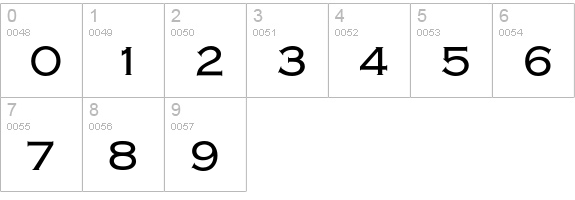
Copperplate Gothic Heavy Font Details
Copperplate Gothic Heavy is a heavy, high-impact variant in the Copperplate typeface family \xE2\x80\x94 well suited to high-impact headlines, posters, and display advertising.
Copperplate Gothic Heavy is a bold and commanding typeface that exudes strength and sophistication. With its clean lines and distinct letterforms, this font makes a powerful statement in any design project. The thick strokes and sharp angles of Copperplate Gothic Heavy give it a modern and timeless appeal, making it a versatile choice for a wide range of applications. This font is perfect for headlines, logos, posters, and any other design element that requires a strong and impactful typeface. Its bold and authoritative presence commands attention and conveys a sense of confidence and professionalism. The best part is that Copperplate Gothic Heavy is available for free download at FontsMarket.com. Whether you're a designer looking to add a bold touch to your project or a business owner in need of a strong visual identity, Copperplate Gothic Heavy is the perfect choice. Download it today and make a bold statement with your design work.